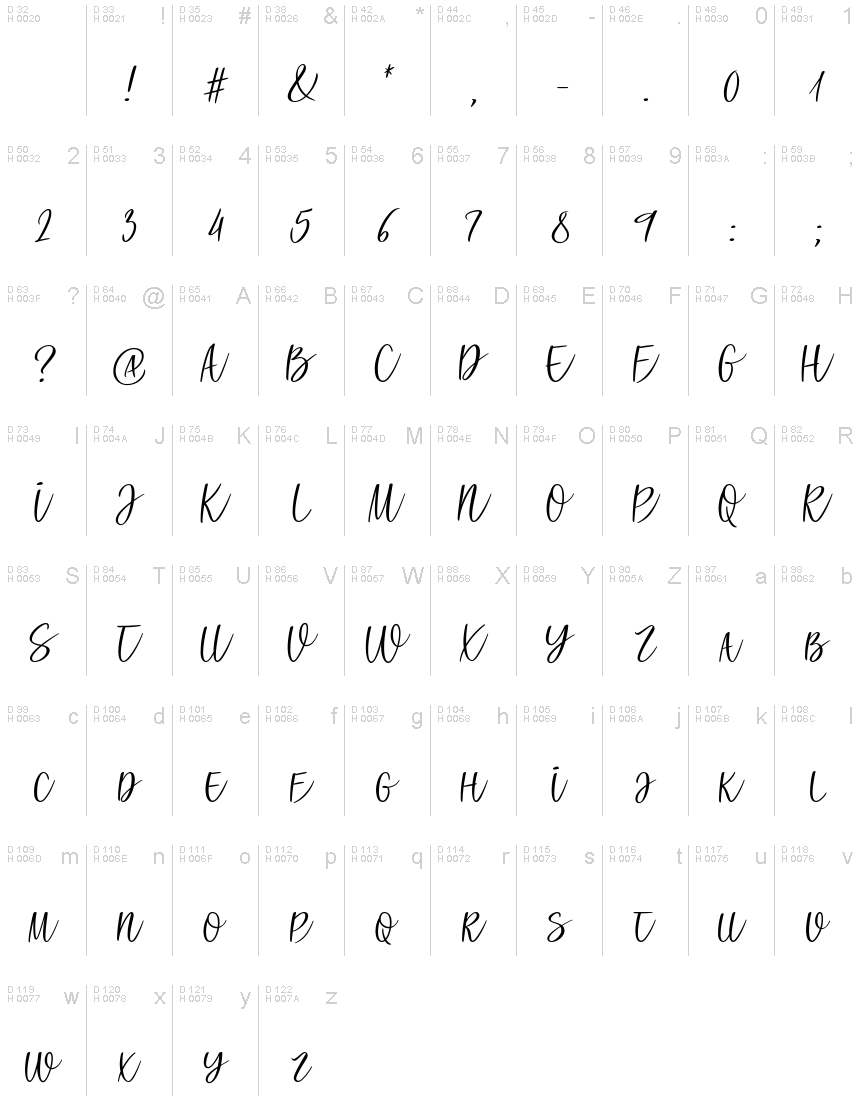
All Caps Script Regular
All Caps Script font, designed by Roland Huse Design, radiates an inviting and playful charm. Its unique handwritten style, characterized entirely by capital letters and charming small caps in lieu of lowercase options, adds a personal touch to any design. The fluid strokes and light appearance evoke a sense of warmth and informality, making it perfect for conveying creativity.
Visually captivating with a distinctive casual flair, All Caps Script thrives in settings where personality shines through—think invitations, greeting cards, or branding for artisanal products. Its engaging form balances elegance with approachability, making it an ideal choice for designs that aim to connect emotionally with the audience.
Ligatures in this version: SA and TT